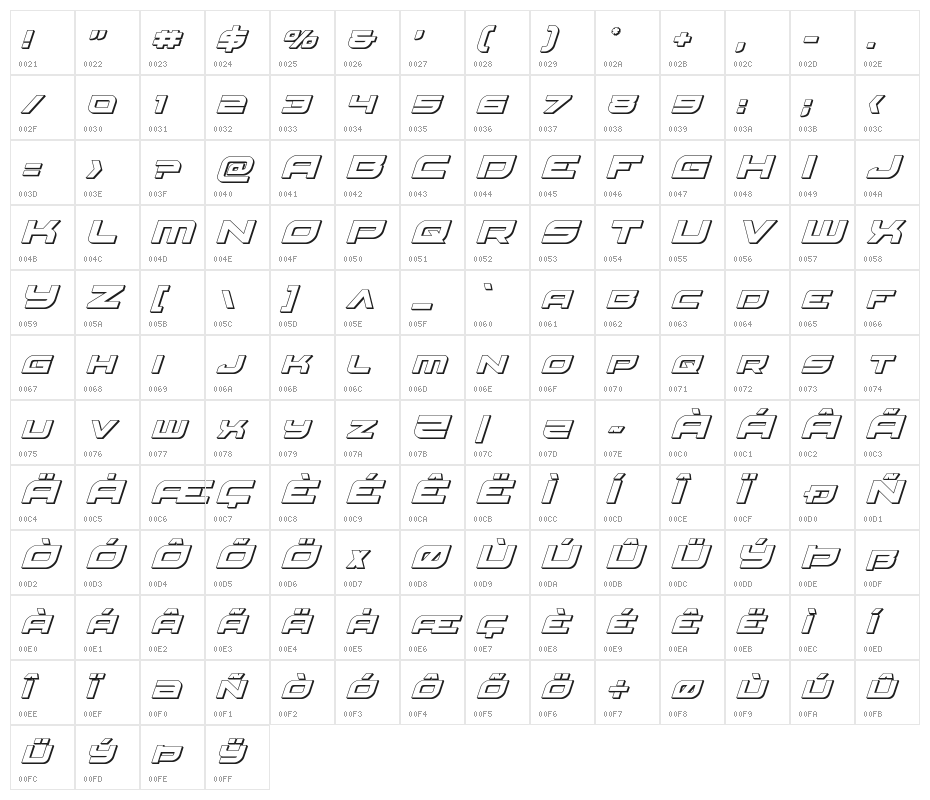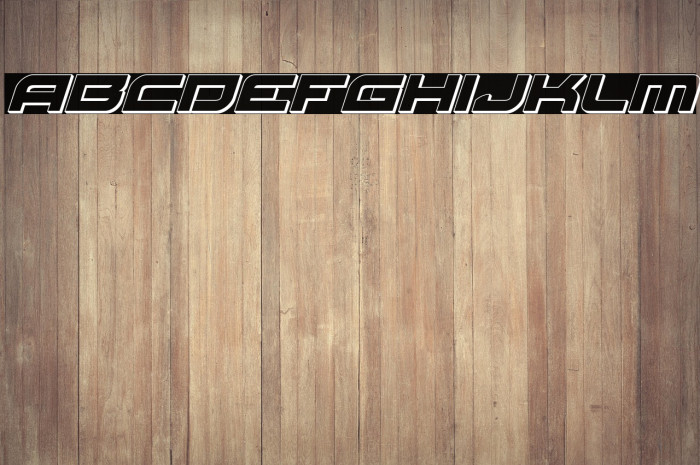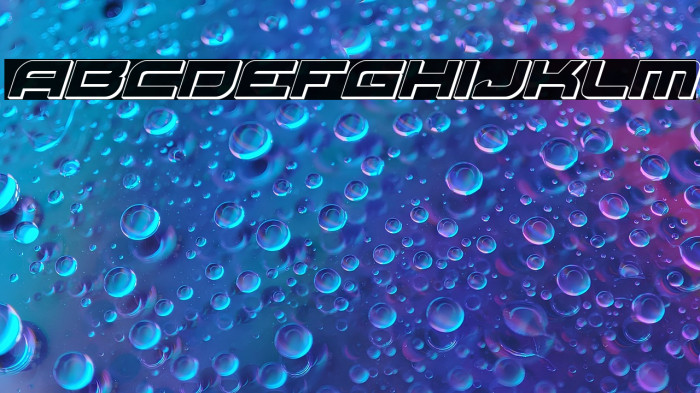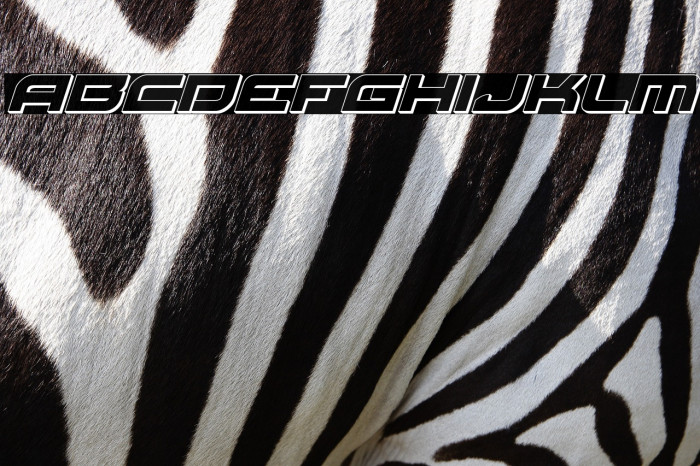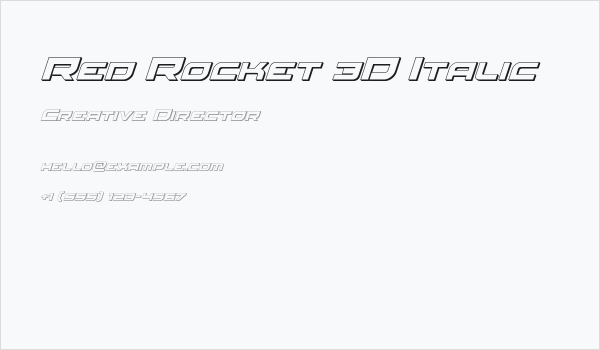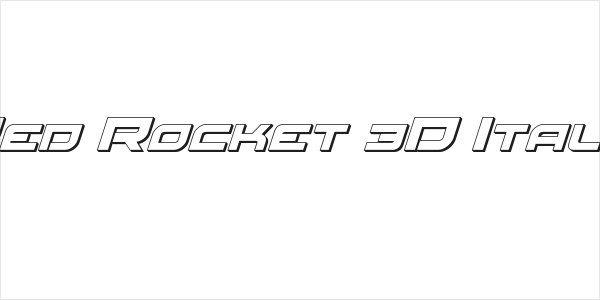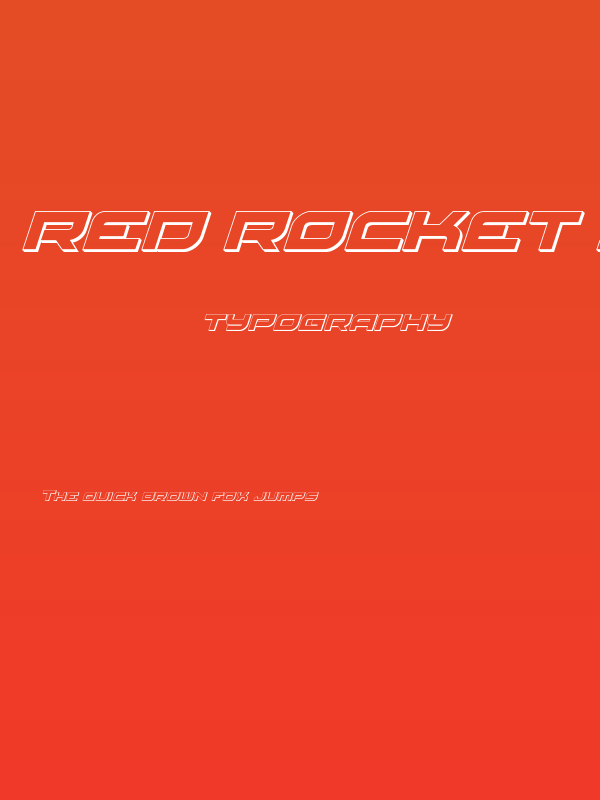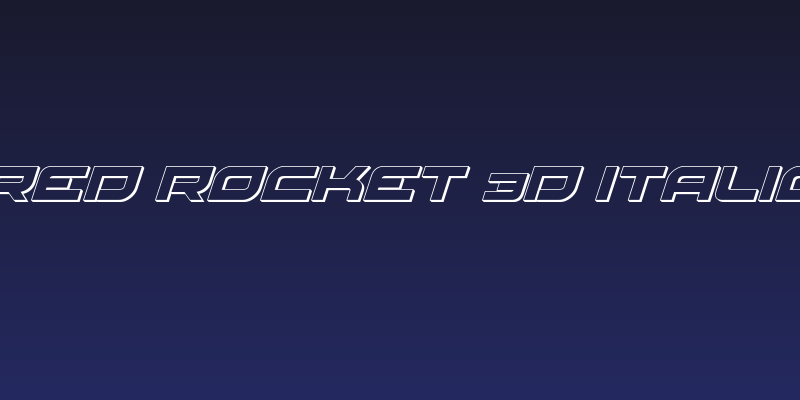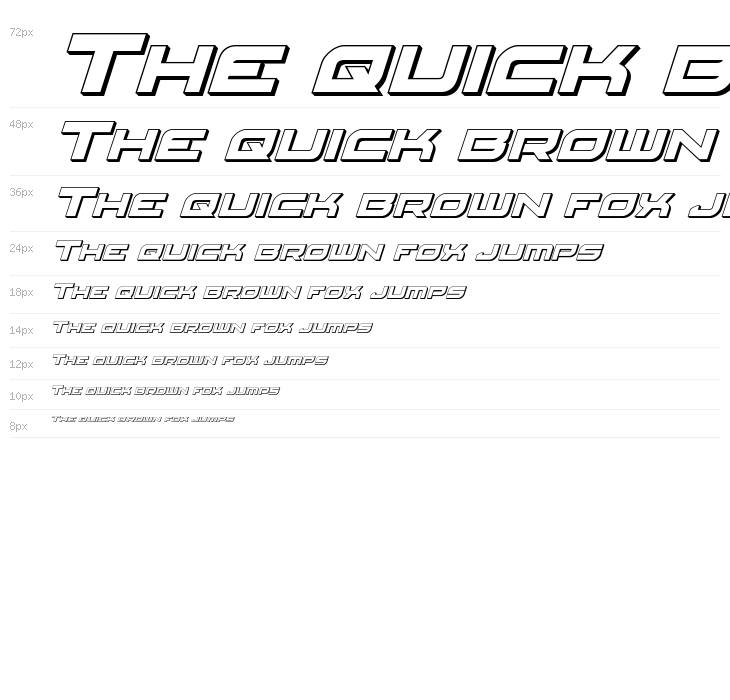
Red Rocket 3D Italic Font
Red Rocket 3D Italic Description
This font features a dynamic and futuristic design with a 3D effect, characterized by bold, angular lines and a slight italic slant. The characters are outlined, giving a sense of depth and movement, which is enhanced by the italic style. The uppercase letters are consistent in height, while the numerals and special characters maintain the same bold and angular aesthetic. The font's unique style makes it stand out, suitable for projects that require a modern and energetic look.
| Proposed Projects | Ideal for sci-fi themed designs, video game titles, technology branding, and dynamic posters. |